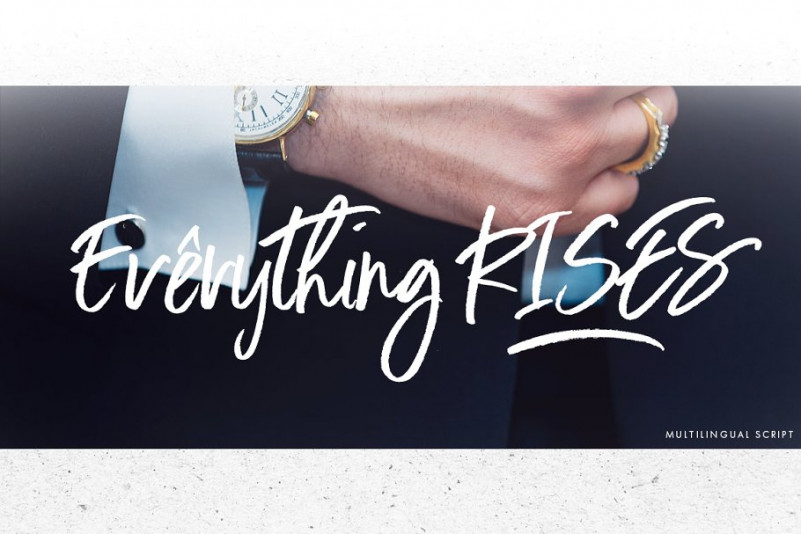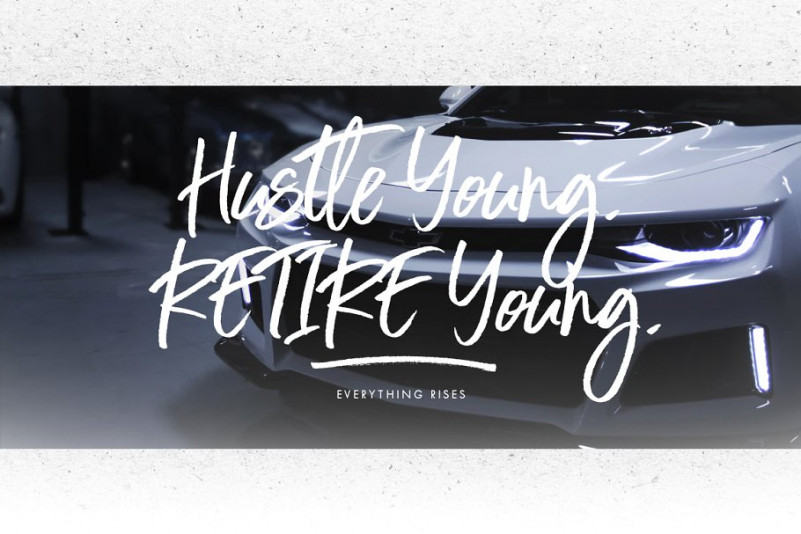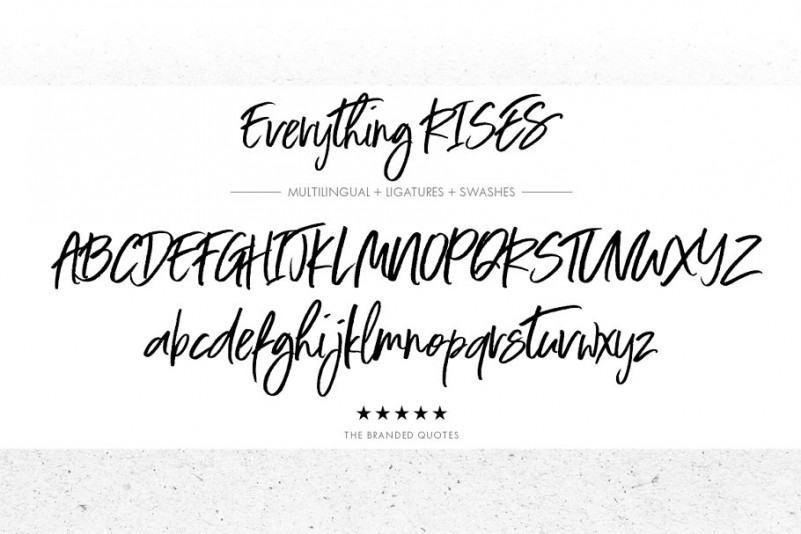
Everything RISES – Script Font
Everything RISES Font is script brush font with elegant and classy style. A beautiful collection of UPPERCASE hand-painted brush font! With SWASHES which can be mixed up. All fonts containing upper & lowercase characters, numerals, ligatures and a large range of punctuation. It is design and shared by The Branded Quotes. It’s a multilingual typeface packed with all the motivations. Unleash the alpha and let the logical mind dominates! This brush script can work all lowercase, all capitals or mix them both. Overlay it on your photographs and designs for a glamorous result. Now heads up and wear the mindset of a RISER.